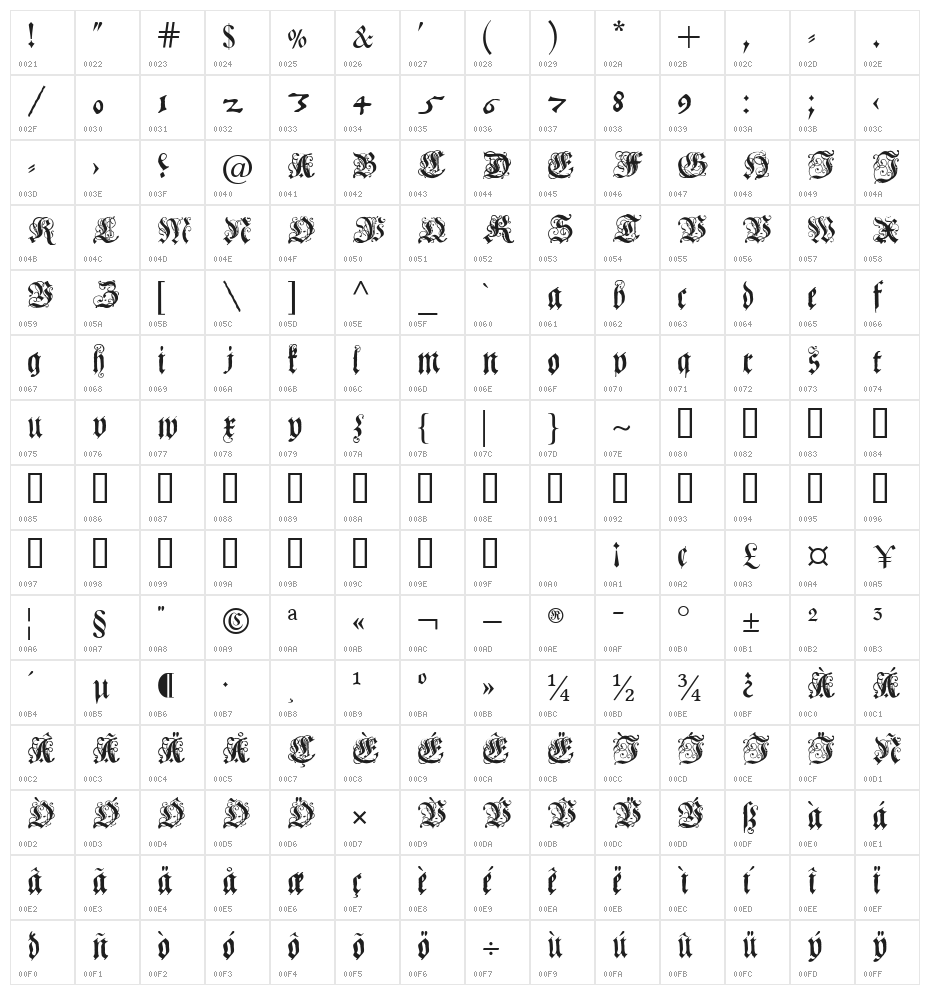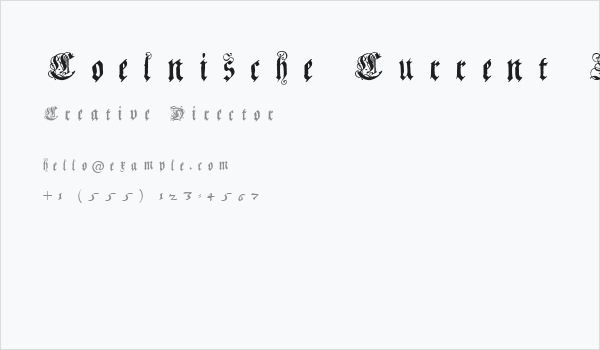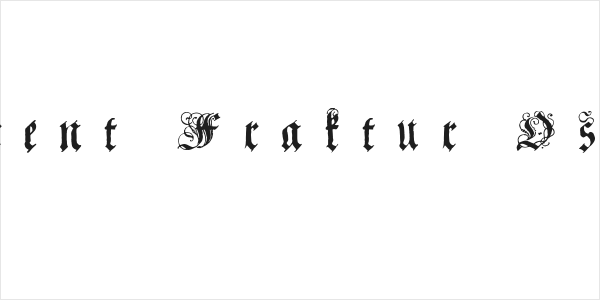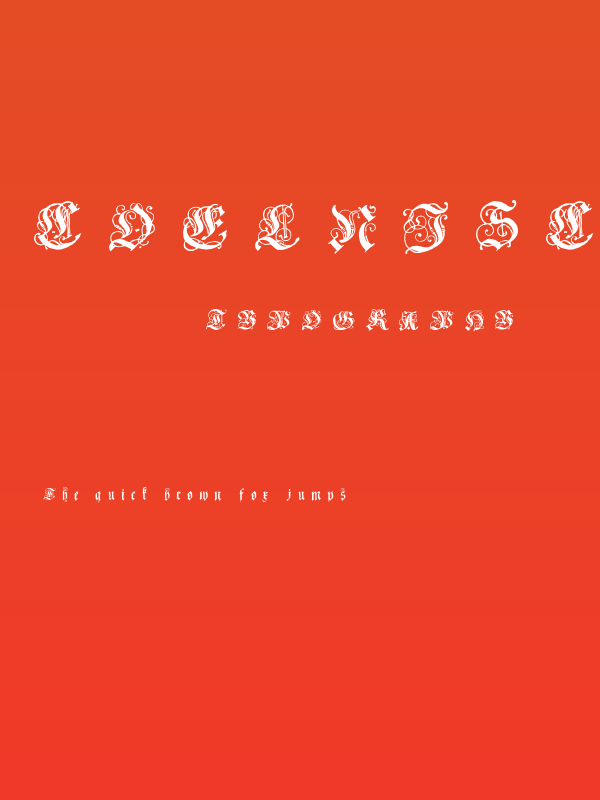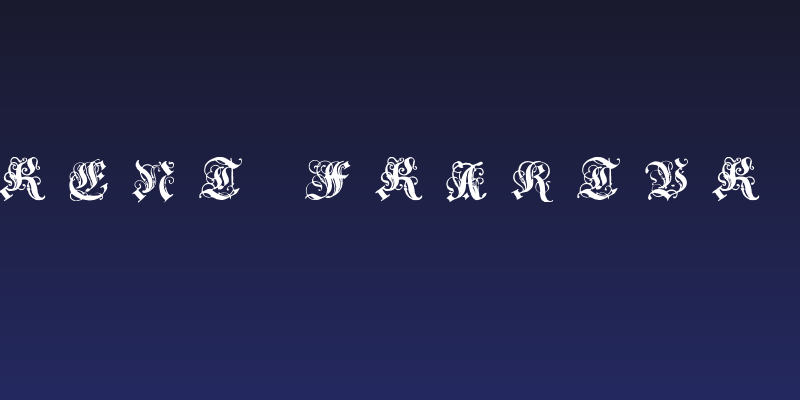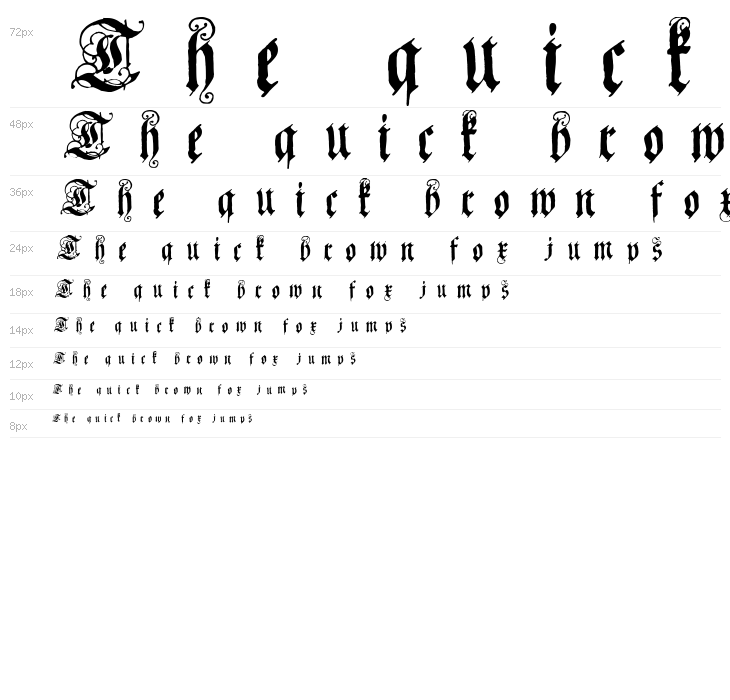
Coelnische Current Fraktur OsF UNZ1 Italic Font
Coelnische Current Fraktur OsF UNZ1 Italic Description
This font embodies the intricate and historical essence of traditional blackletter styles, characterized by its ornate and elaborate letterforms. Each character is crafted with a high level of detail, featuring sharp angles and decorative flourishes that evoke a sense of medieval manuscript artistry. The uppercase letters are particularly elaborate, with additional embellishments that enhance their visual impact. The lowercase letters maintain the same level of detail, ensuring consistency throughout the typeface. The numerals and special characters are designed to match the overall aesthetic, providing a cohesive look across all elements. This font is ideal for projects that require a touch of historical elegance and sophistication.
| Proposed Projects | Suitable for historical documents, wedding invitations, book covers, and branding that requires a classic and sophisticated touch. |